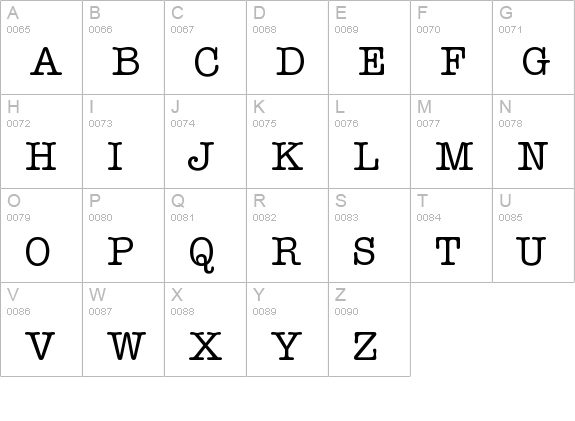
Keyboard SSi Medium Font Details
Keyboard SSi Medium is a balanced, medium-weight variant in the Keyboard typeface family \xE2\x80\x94 well suited to sub-headlines, navigation, and balanced editorial work.